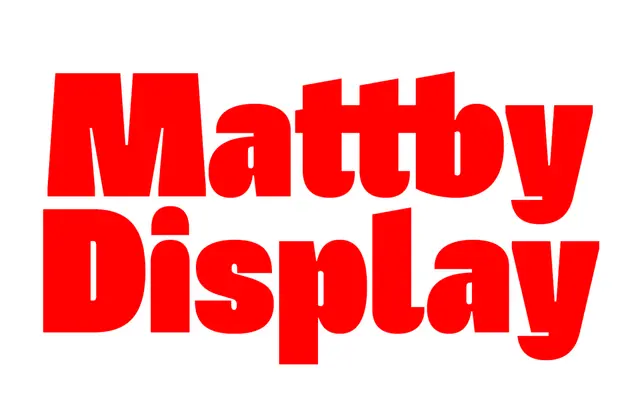
Mattby Display
A thick-set display typeface with an extensive ligature system and titling alternates built for headline work at large sizes.
Built around a deliberately heavy, squat structure, Mattby Display leans into its bulk with wide proportions and strong serifs. The OpenType feature set is unusually generous for a single-weight display face, including discretionary ligatures covering dozens of L, T, R and F combinations, a full titling set with paired capital combinations, and stylistic alternates. Coverage extends across Latin Extended-A and B, making it usable across a broad range of European languages.
A heavily weighted, chunky display typeface with pronounced serifs and a deliberately stocky character, designed explicitly for large-scale display use with extensive OpenType feature support.